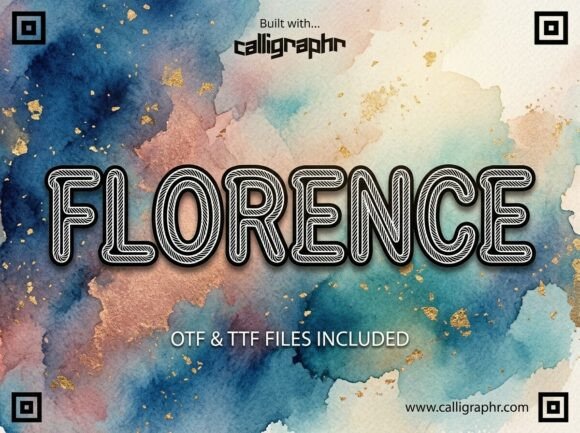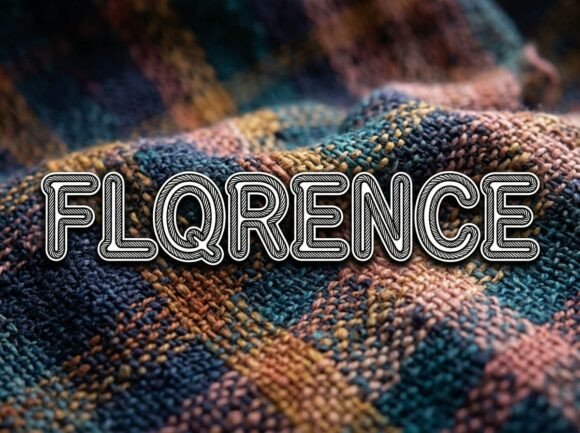
Introducing Florence Font: The Ultimate Nautical Display Font
Are you looking for a unique and captivating font to elevate your creative projects? Look no further than Florence, a stunning display font that embodies the rugged charm of the sea. Inspired by the intricate texture of twisted rope, Florence is the perfect choice for designers and crafters seeking to add a touch of maritime flair to their work.
The Maritime-Artisan Soul of Florence
Florence is more than just a font – it’s an experience. Each bold letterform is meticulously crafted from intricate, overlapping cordage, giving it a distinctive “maritime-artisan” soul. The result is a typeface that exudes a sense of ruggedness and texture, reminiscent of the sea-worn ropes that have been weathered by the ocean’s elements.
Rhythmic Texture and Distinctive Silhouette
One of the standout features of Florence is its rhythmic texture, which adds a sense of movement and energy to any design. The overlapping cordage creates a visually interesting pattern that draws the eye and holds attention. The distinctive silhouette of each letterform is equally impressive, with clean lines and a sense of precision that belies the organic nature of the font’s inspiration.
Perfect for Coastal Lifestyle Branding and More
So, what can you use Florence for? The possibilities are endless, but here are a few ideas to get you started:
- Coastal lifestyle branding: From beachwear to home decor, Florence is the perfect choice for brands that want to evoke the carefree spirit of the coast.
- Nautical event stationery: Make a splash with your wedding invitations, party invites, or other event materials with Florence’s unique and eye-catching design.
- Independent sailing club logos: Give your sailing club a professional and distinctive look with Florence’s bold and nautical-inspired letterforms.
- High-impact beach-house social media headers: Stand out on social media with Florence’s striking design and make your beach house or coastal business shine.
Why Choose Florence?
With so many fonts on the market, why choose Florence? Here are just a few reasons why designers and crafters are falling in love with this unique display font:
- Unique and eye-catching design: Florence is unlike any other font on the market, with its intricate cordage and bold letterforms.
- Highly versatile: From branding to social media headers, Florence can be used in a wide range of creative projects.
- Easy to read: Despite its intricate design, Florence is surprisingly easy to read, making it perfect for headlines and titles.
Tips for Using Florence in Your Designs
To get the most out of Florence, here are a few tips to keep in mind:
- Use it boldly: Florence is a statement font, so don’t be afraid to use it in bold and eye-catching ways.
- Experiment with colors: From bright and bold hues to more muted, beachy tones, Florence looks great in a wide range of colors.
- Pair it with contrasting fonts: For maximum impact, pair Florence with a contrasting font that’s clean and simple.
In conclusion, Florence is a one-of-a-kind display font that’s sure to make a splash in your creative projects. With its unique maritime-inspired design, rhythmic texture, and distinctive silhouette, Florence is the perfect choice for designers and crafters looking to add a touch of the sea to their work. So why wait? Download Florence today and start tying your creative projects together with this stunning nautical font.